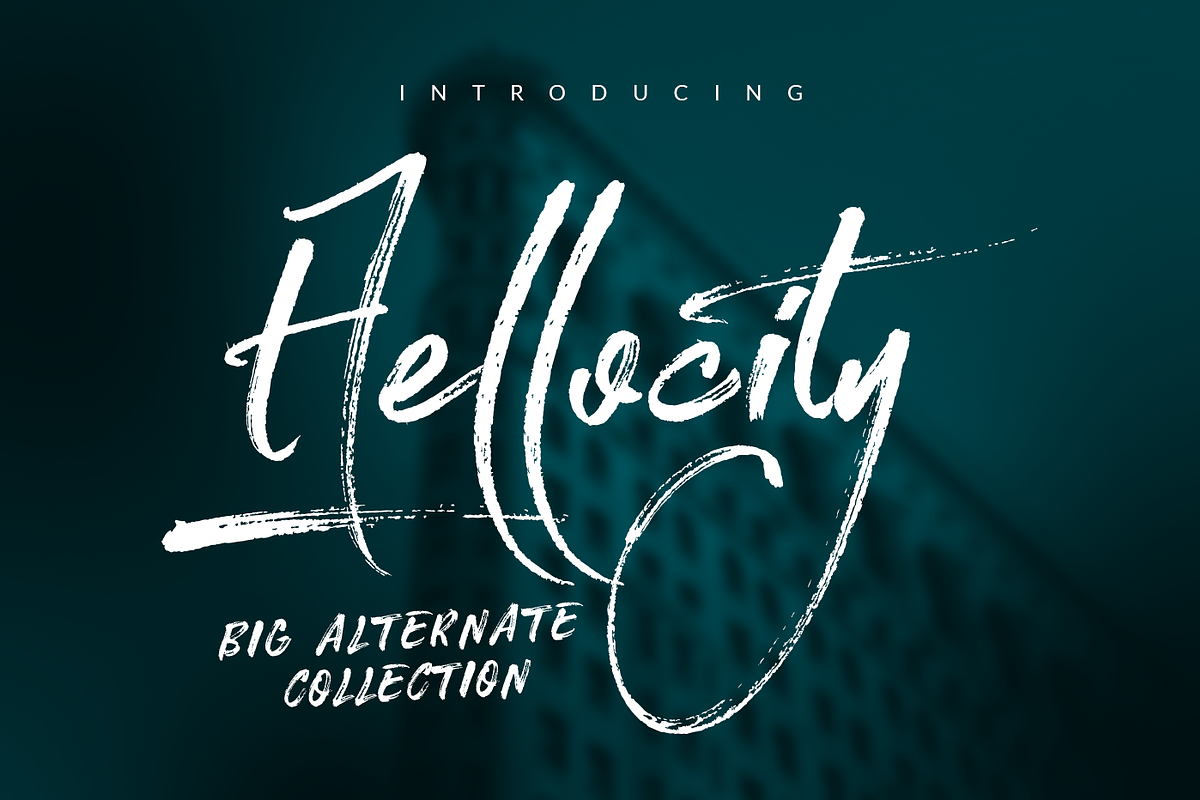
Hellocity Font Free Download is a bold and playful handwritten typeface full of charm and personality. With its bouncy baseline, casual strokes, and friendly flow, this font is perfect for branding, greeting cards, children’s designs, social media posts, and fun product packaging.
Hellocity brings an urban-meets-handmade vibe, making it feel modern yet approachable. Whether you’re designing a cute logo, a cheerful quote graphic, or custom stationery, this font adds energy and character without sacrificing readability.
Great for both print and digital projects, it stands out with a fun, expressive tone that makes every word feel personal.